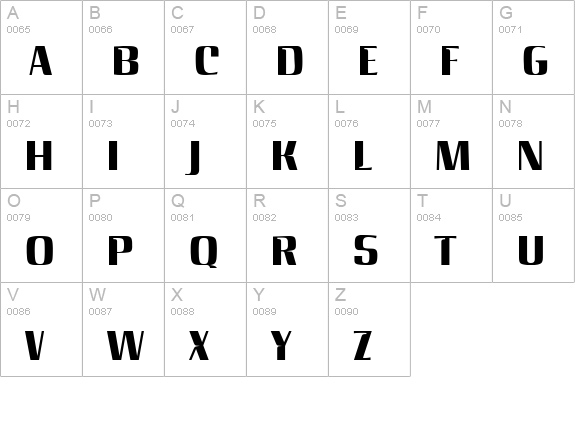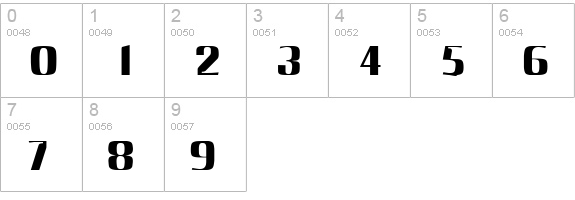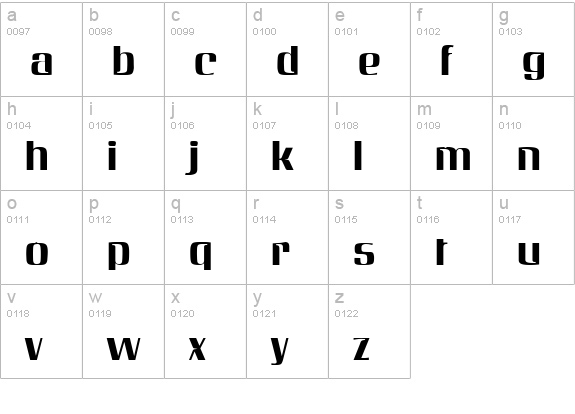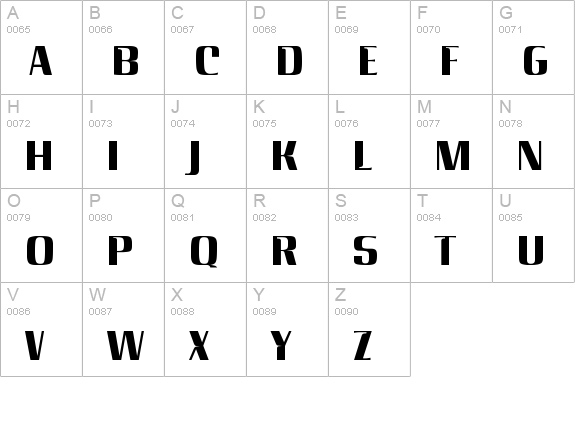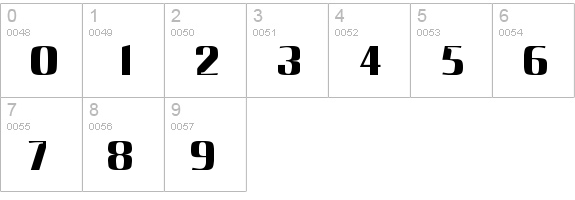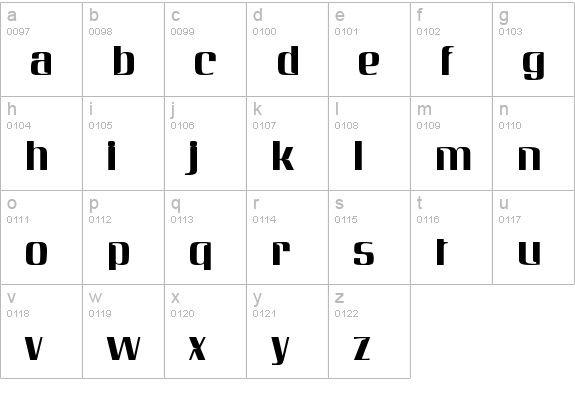
Inverserif-Regular Font Details
Inverserif-Regular is the standard, neutral variant in the Inverserif typeface family \xE2\x80\x94 well suited to general body text, paragraphs, and standard typographic work.
Inverserif-Regular font is a modern and elegant typeface that exudes sophistication and style. With its sleek lines and sharp edges, this font is perfect for creating clean and professional designs. The versatility of Inverserif-Regular makes it suitable for a wide range of projects, from branding to editorial design. Best of all, Inverserif-Regular is available for free download at FontsMarket.com. This means that you can easily access this high-quality font without any cost, making it a valuable addition to your font library. Whether you're a graphic designer, web developer, or hobbyist, Inverserif-Regular is a fantastic choice for adding a touch of class to your projects. Download it today and elevate your designs with this stunning typeface.